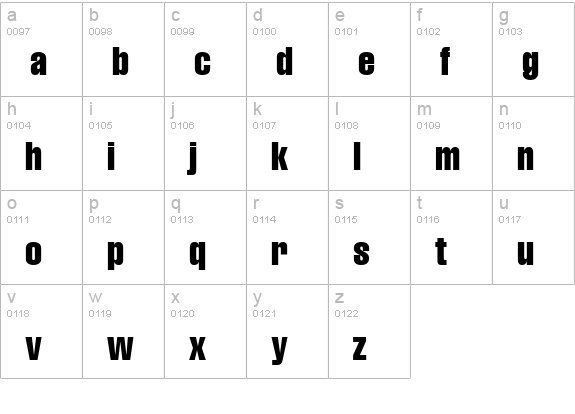
AG Letterica Compr Plain Medium is a balanced, medium-weight variant in the AG typeface family \xE2\x80\x94 well suited to sub-headlines, navigation, and balanced editorial work.
AG Letterica Compr Plain Medium font is a versatile and modern typeface that exudes elegance and sophistication. With its clean lines and balanced proportions, this font is perfect for a wide range of design projects, from branding to editorial layouts. The medium weight strikes the right balance between readability and impact, making it suitable for both headlines and body text. One of the best features of AG Letterica Compr Plain Medium font is that it is available for free download at FontsMarket.com. This means that you can easily access this high-quality font without any cost, making it a valuable addition to your design toolkit. Whether you are a professional designer or a hobbyist looking to elevate your projects, this font is a must-have for any typographic enthusiast. Embrace the timeless appeal of AG Letterica Compr Plain Medium font and enhance your designs with its classic yet contemporary aesthetic. Download it for free today at FontsMarket.com and elevate your typography game effortlessly.